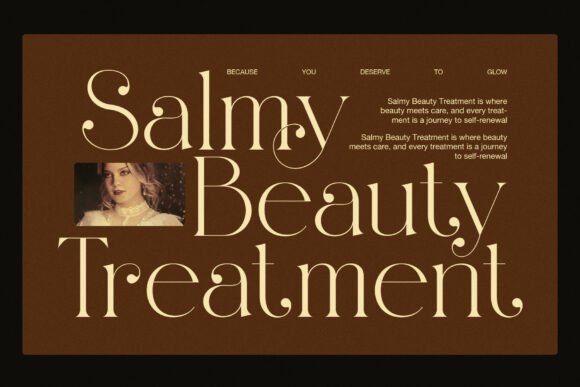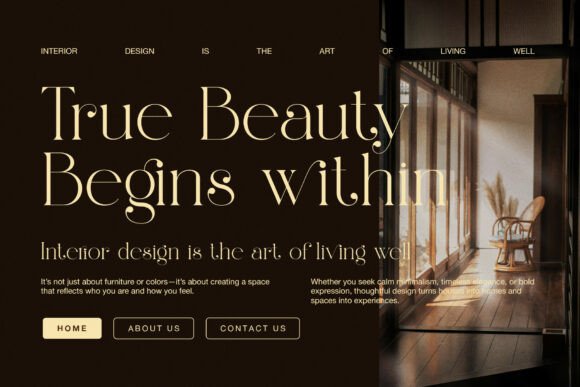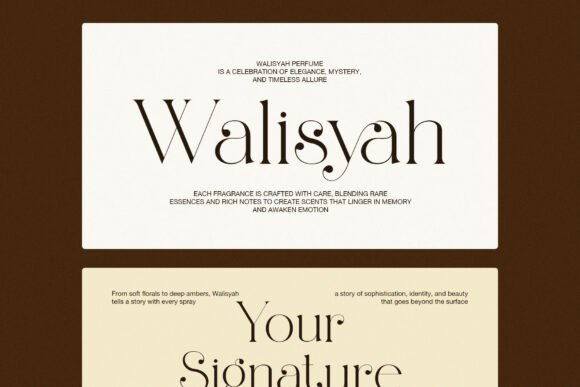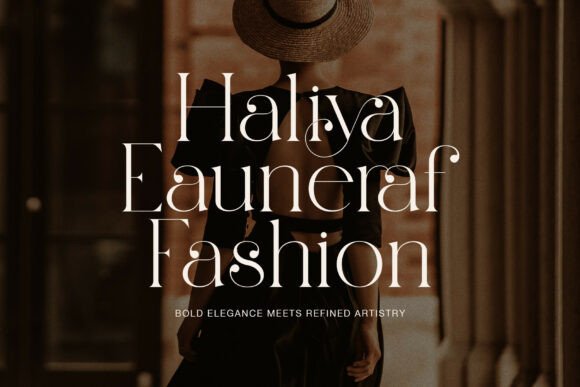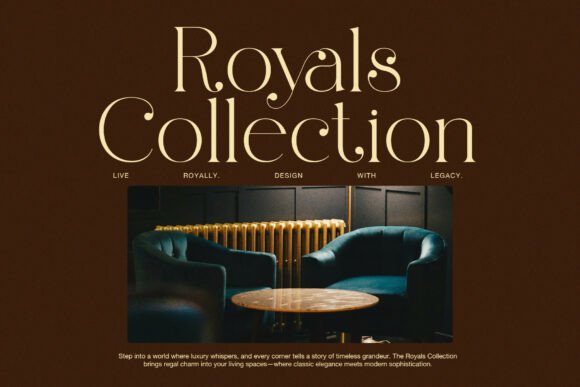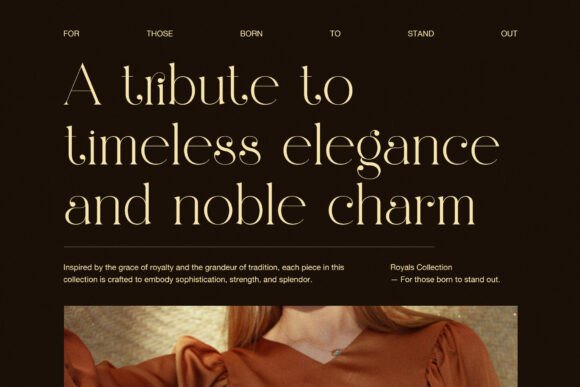
Introduction to Qaliyan Font
As designers, we’ve all been there – staring at a blank canvas, waiting for the perfect font to bring our creative project to life. And then, it happens. A font that effortlessly elevates your design from ordinary to extraordinary. For many, that font is Qaliyan. A modern serif font that effortlessly blends simplicity with elegance, Qaliyan has become a go-to design resource for creatives around the world.
What sets Qaliyan apart is its unique ability to adapt to any design need. Whether you’re working on a modern logo design, product packaging, or even social media posts, this versatile font is sure to deliver. With its sleek and stylish serif shapes, smooth spacing for easy reading, and functional ligatures that add a touch of sophistication, Qaliyan is the perfect addition to any design project.
Key Features of Qaliyan Font
- Unique, elegant design suitable for creative projects and designs
- High-quality font with transparent background, ideal for graphic design and digital art
Honest Review: Qaliyan Font
I recently had the chance to work with the Qaliyan Font in a creative project, and I must say it’s been a game-changer for my design resource library. The high quality of the font really shines through, especially when used on a transparent background. It’s perfect for adding a touch of elegance to any design.
Here are some things that work well with the Qaliyan Font: ✨
- Unique and elegant design style that’s perfect for creative projects
- High quality rendering, even when scaled up or down
- Works well on both light and dark backgrounds
However, there are a few limitations to keep in mind: ⚠️
- No bold or italic versions available (although this might be a deliberate design choice)
- May not be suitable for projects that require a lot of text manipulation (due to its decorative nature)
Overall, I’m really impressed with the Qaliyan Font and would highly recommend it to designers looking for a high-quality, elegant font for their creative projects. With its unique design style and high quality rendering, it’s definitely a valuable addition to any design resource library.
Getting the Most Out of Qaliyan Font
To get the most out of the Qaliyan Font, use it in combination with other high-quality design resources, experiment with different font sizes and styles, and use the transparent background to create visually appealing designs.
The Qaliyan Font is commonly used in graphic design, digital art, and creative writing projects. It is ideal for creating visually appealing headings, titles, and quotes.